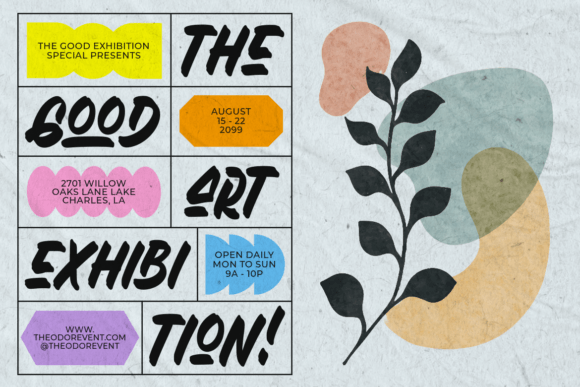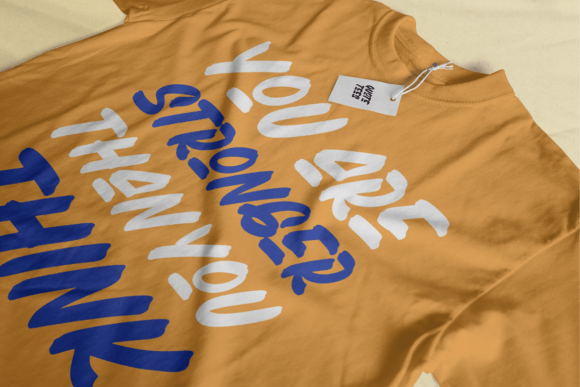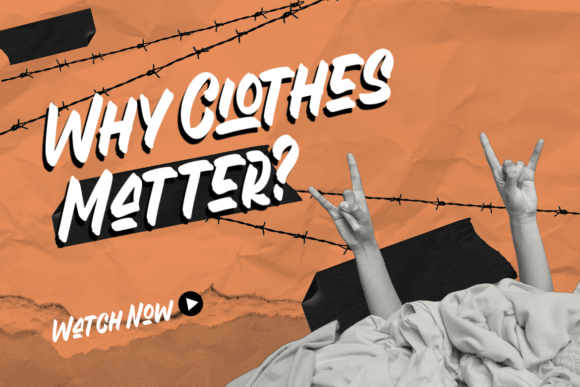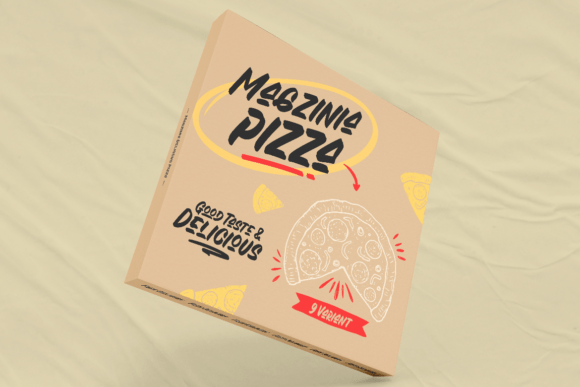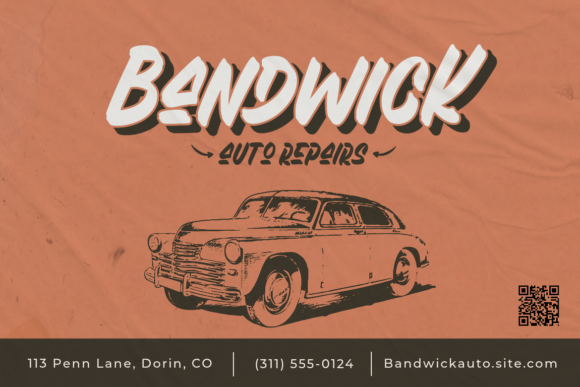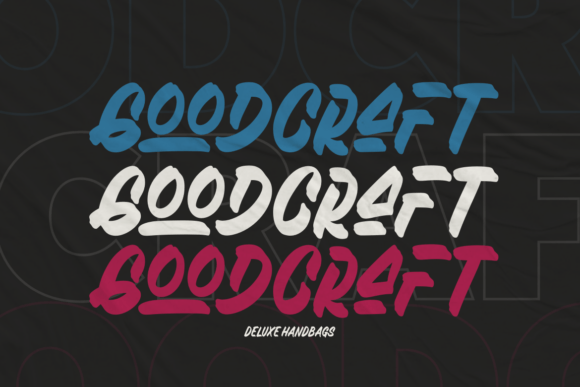
Introduction to Playsign Font
Have you ever stared at a blank canvas, waiting for the perfect font to spark your creativity? The moment of truth finally arrived when you stumbled upon Playsign Font – a vibrant display typeface that awakens your imagination and elevates your design projects to new heights.
With its meticulously crafted characters, punctuations, numbers, and symbols, Playsign Font is a high-quality design resource that offers seamless multi-language support, making it an invaluable asset for designers working on diverse creative projects. Whether you’re aiming for a bold statement or a subtle nuance, this font injects charisma into every project, embodying a harmonious blend of classic aesthetics and contemporary flair. Imagine being able to download this versatile typographic tool for free and unleash your imagination on a transparent background, knowing that your designs will resonate with vibrancy and distinction.
Key Features of Playsign Font
- High-quality design: The Playsign Font offers a unique and modern design that is perfect for creative projects.
- Transparent background: The Playsign Font features a transparent background, allowing for seamless integration with any design or image.
- Unique characteristics: The Playsign Font features a distinctive, hand-drawn look with a mix of bold and cursive elements, making it perfect for adding a personal touch to creative projects.
Honest Review: Playsign Font
I recently had the chance to work with the Playsign Font, and I must say it’s been a great addition to my design resource library. This high-quality font is a free download, making it accessible to designers of all levels.
What works well with the Playsign Font is its versatility. It’s perfect for a wide range of creative projects, from logos and branding to posters and social media graphics. The font’s modern and sleek design makes it easy to pair with other design elements, and it’s available in both regular and bold weights.
- ✨ High-quality design with a modern feel
- ✨ Versatile font suitable for a variety of creative projects
One potential limitation of the Playsign Font is the lack of a transparent background option. This can make it difficult to use the font on complex backgrounds or with images that require a transparent layer.
Overall, I’m impressed with the Playsign Font. Its high-quality design and versatility make it a valuable resource for any designer. While it may have some limitations, it’s definitely worth considering for your next creative project.
- ⚠️ Limited transparent background options
The Playsign Font is a high-quality, free design resource perfect for creative projects. Its modern and sleek design makes it an ideal choice for various applications.
To maximize the impact of the Playsign Font, use it in combination with other high-quality design elements and keep your design clean and simple.
The Playsign Font is perfect for creative projects, such as: